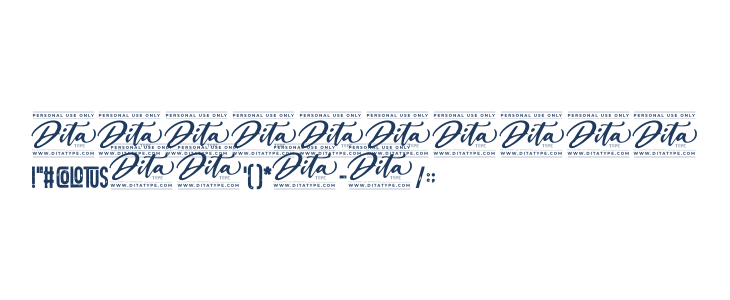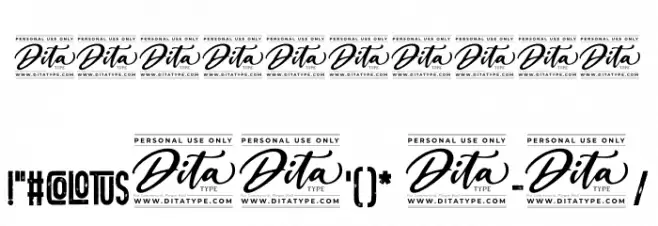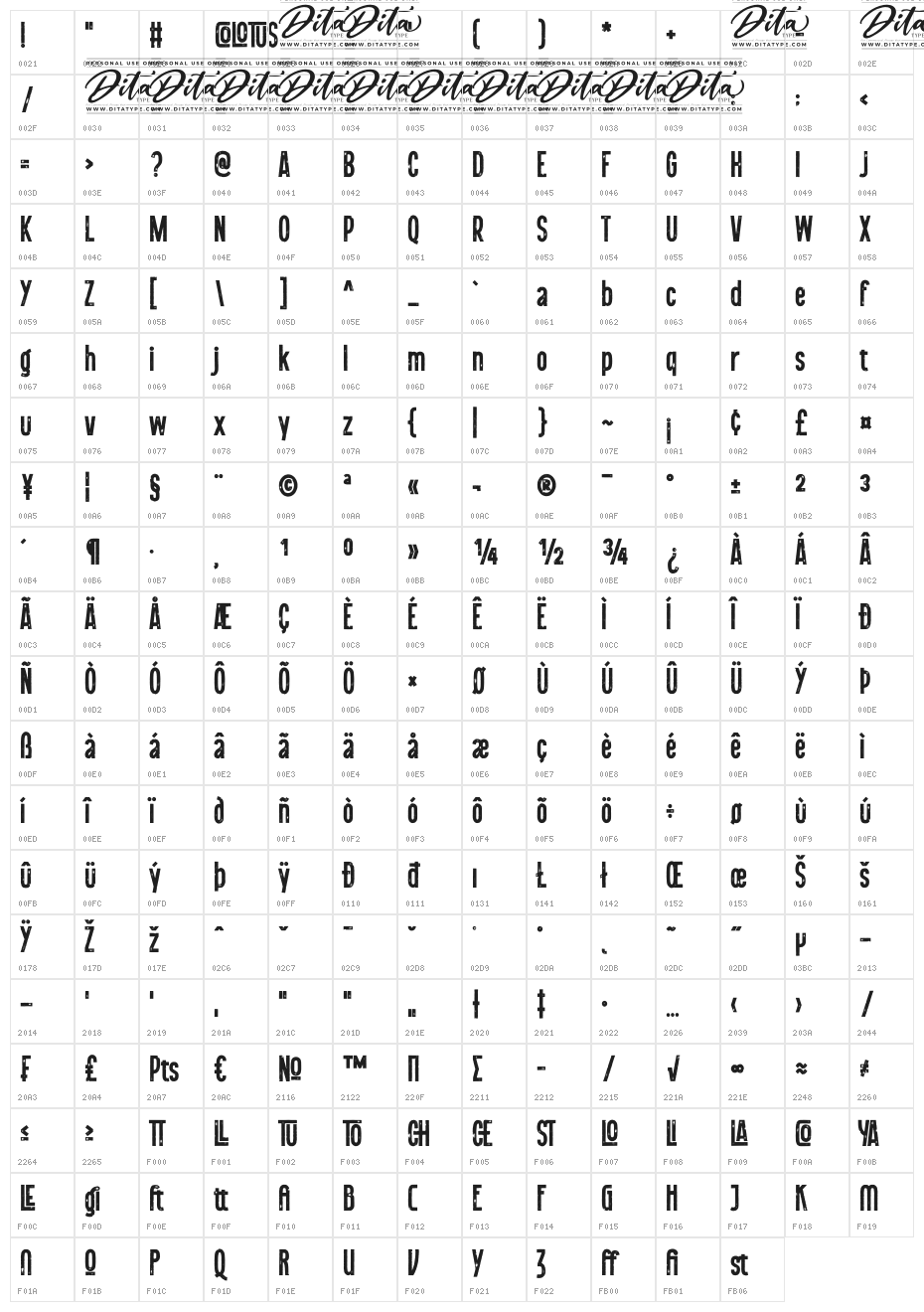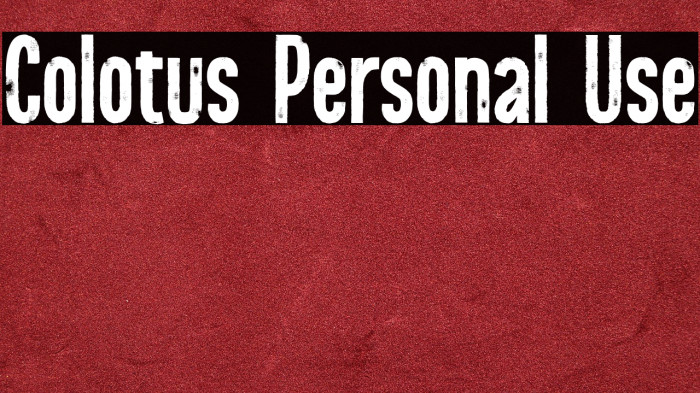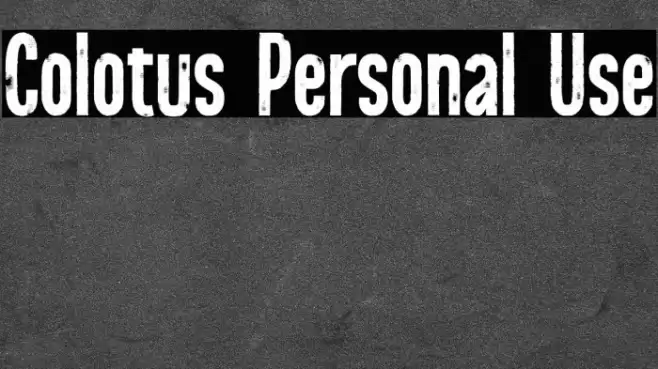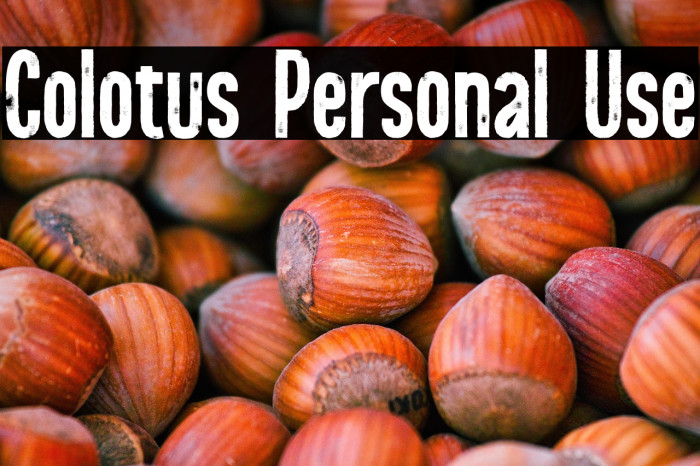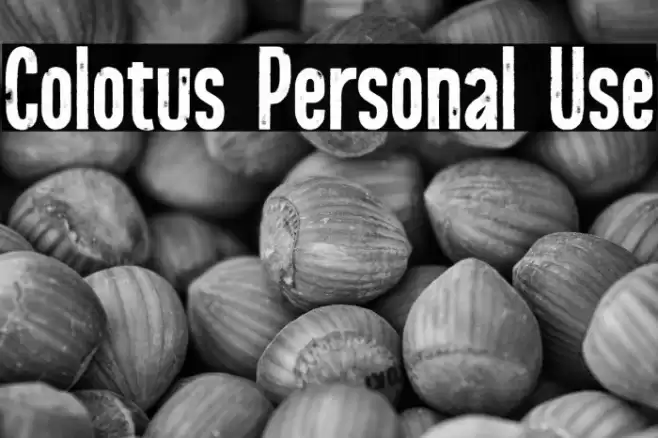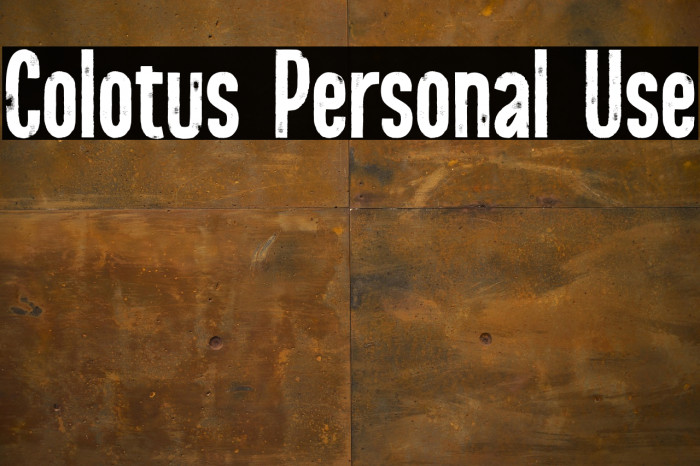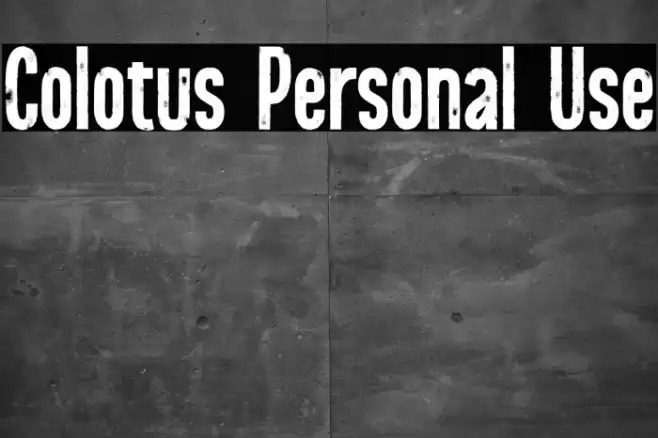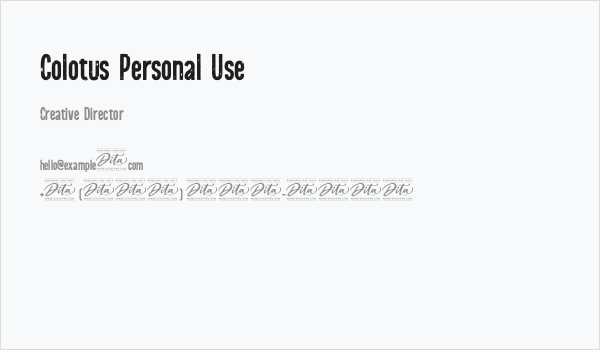
Colotus Personal Use Font
Colotus Personal Use Description
This font features a bold, distressed style with a textured appearance that gives it a rugged, vintage feel. The uppercase and lowercase letters maintain a consistent height, contributing to a uniform look. The characters are slightly condensed, enhancing the boldness and making it suitable for impactful designs. The numbers and special characters follow the same distressed pattern, ensuring a cohesive aesthetic across all elements. This font's unique style makes it ideal for projects that require a strong, eye-catching typeface.
| Proposed Projects | Ideal for posters, branding, logos, and any design requiring a bold, vintage aesthetic. |